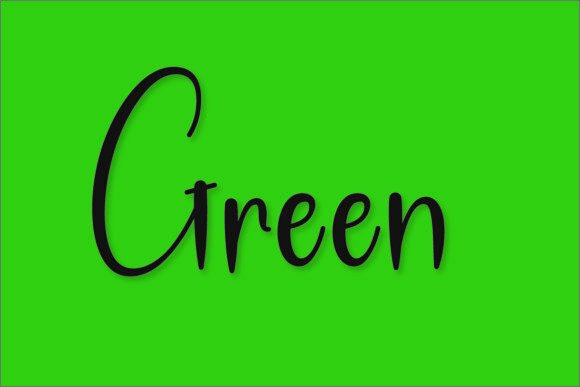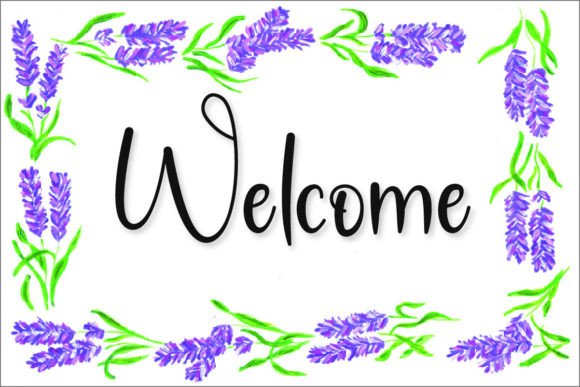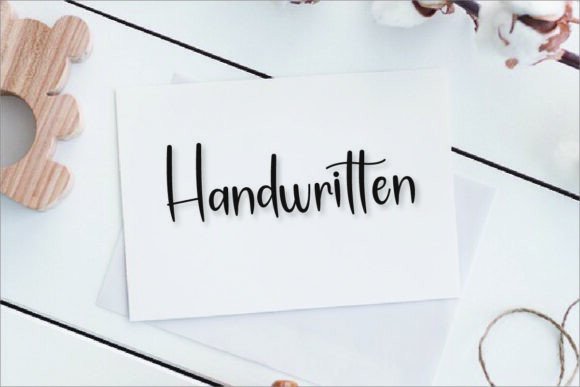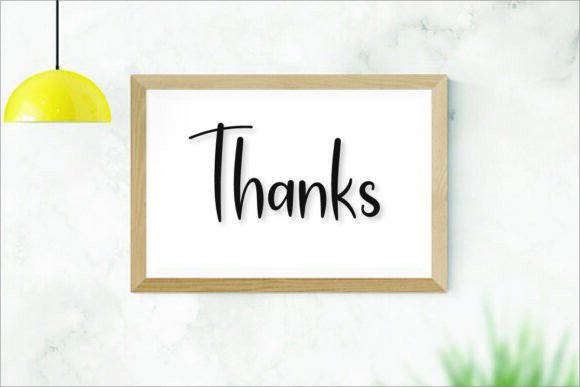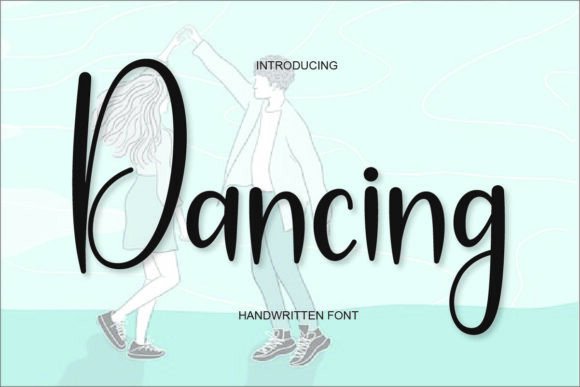
Dancing Font: Elevate Your Designs with a Sweet and Cursive Handwritten Style
Are you looking for a font that can add a touch of elegance and whimsy to your designs? Look no further than the Dancing Font, a beautiful and versatile handwritten font that is perfect for a wide range of creative projects. In this article, we’ll take a closer look at the Dancing Font, its features, and how you can use it to take your designs to the next level.
What is Dancing Font?
Dancing Font is a sweet and cursive handwritten font that is designed to add a joyful and romantic touch to your designs. Its gentle and flowing lines make it perfect for creating elegant and sophisticated designs that are sure to impress. Whether you’re working on a branding project, a wedding invitation, or a fashion lookbook, the Dancing Font is a great choice.
Features of Dancing Font
The Dancing Font has a number of features that make it a great choice for designers and crafters. Some of its key features include:
- Handwritten style: The Dancing Font has a beautiful, handwritten style that gives it a personal and unique touch.
- Cursive lines: The font’s cursive lines add a touch of elegance and sophistication to your designs.
- Versatile: The Dancing Font is versatile and can be used for a wide range of design projects, from branding and logos to wedding invitations and greeting cards.
- Elegant and casual: The font has an elegant and casual feel that makes it perfect for designs that need to be both sophisticated and approachable.
Use Cases for Dancing Font
The Dancing Font is a versatile font that can be used for a wide range of design projects. Here are some use cases where the Dancing Font is particularly well-suited:
- Branding and logos: The Dancing Font is a great choice for branding and logos, as it adds a touch of elegance and sophistication to your brand identity.
- Wedding invitations and things: The font’s romantic and whimsical feel makes it perfect for wedding invitations, save-the-dates, and other wedding-related designs.
- Greeting cards: The Dancing Font is a great choice for greeting cards, as it adds a personal and touch to your messages.
- Fashion and lookbooks: The font’s elegant and sophisticated feel makes it perfect for fashion designs, lookbooks, and marketing promotions.
Tips for Using Dancing Font
Here are some tips for using the Dancing Font in your designs:
- Use it sparingly: While the Dancing Font is beautiful, it can be overwhelming if used too much. Use it sparingly to add a touch of elegance to your designs.
- Pair it with other fonts: The Dancing Font pairs well with other fonts, such as sans-serif fonts. Experiment with different font combinations to find the one that works best for your design.
- Adjust the size and color: Experiment with different sizes and colors to find the one that works best for your design.
The Dancing Font is a beautiful and versatile handwritten font that is perfect for a wide range of design projects. Its elegant and whimsical feel makes it a great choice for designers and crafters who want to add a touch of sophistication and romance to their designs. With its cursive lines, handwritten style, and versatile use cases, the Dancing Font is a great addition to any designer’s toolkit.
Whether you’re working on a branding project, a wedding invitation, or a fashion lookbook, the Dancing Font is a great choice. So why not give it a try and see how it can elevate your designs to the next level?